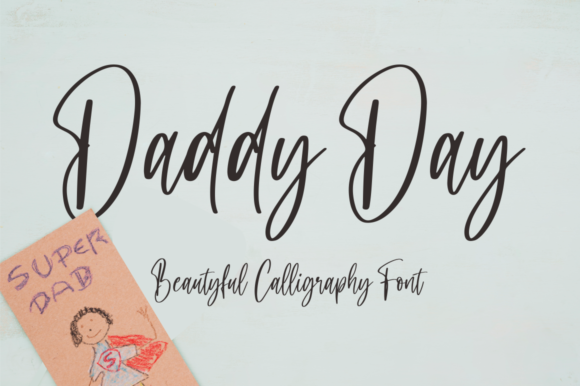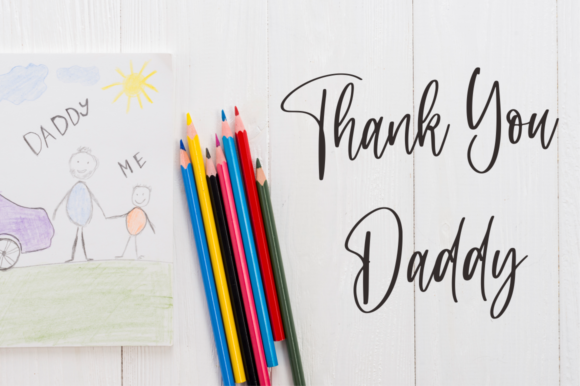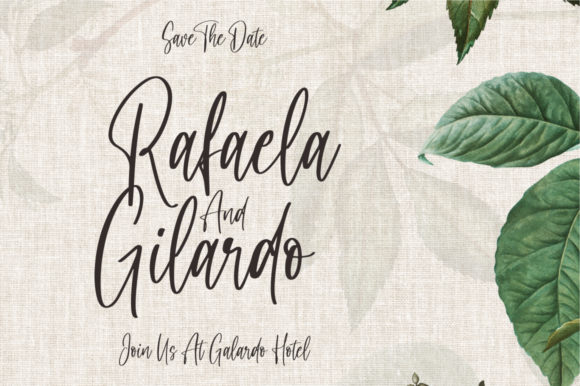
About Daddy Day Font
Daddy Day is a lovely and delicate script font that exudes elegance and class. This font was particularly crafted for those who need a beautiful and refreshing look to their designs.
Daddy Day is PUA encoded which means you can access all glyphs and swashes with ease!